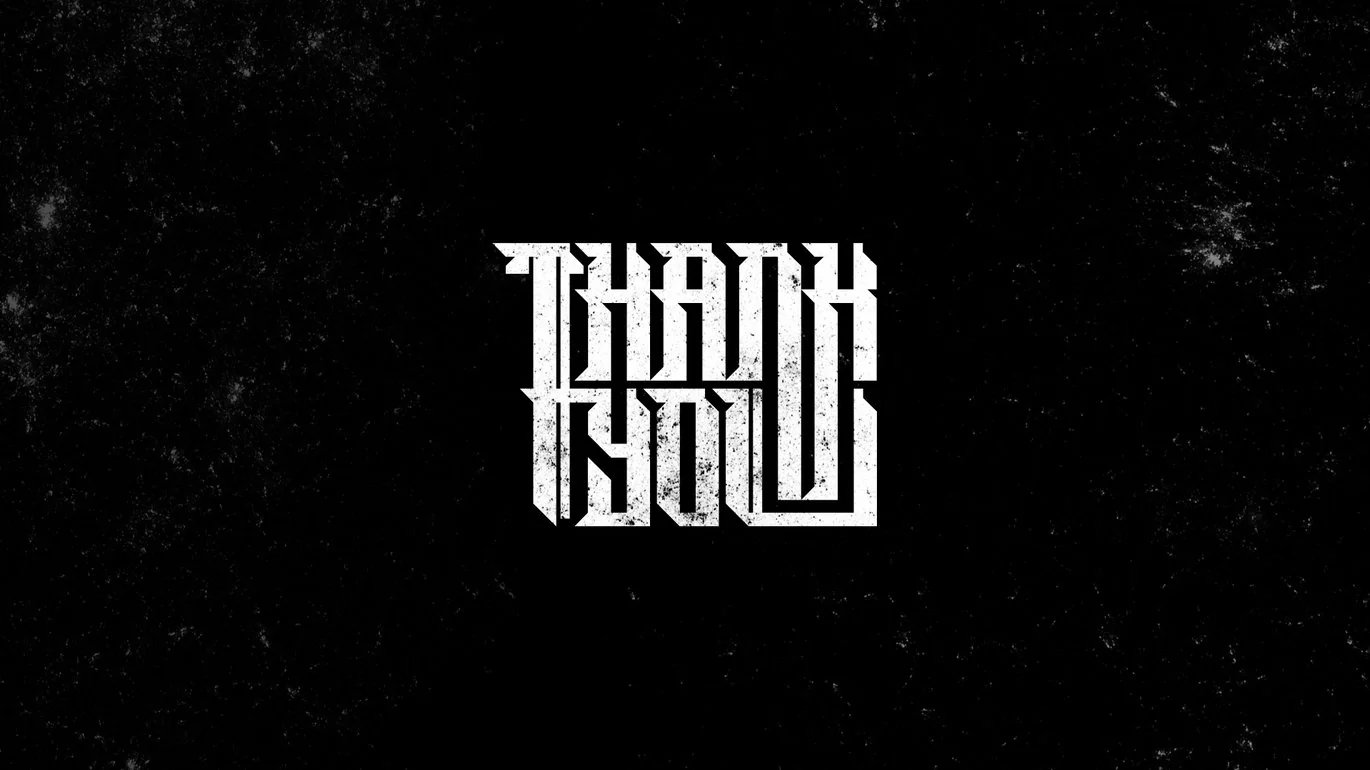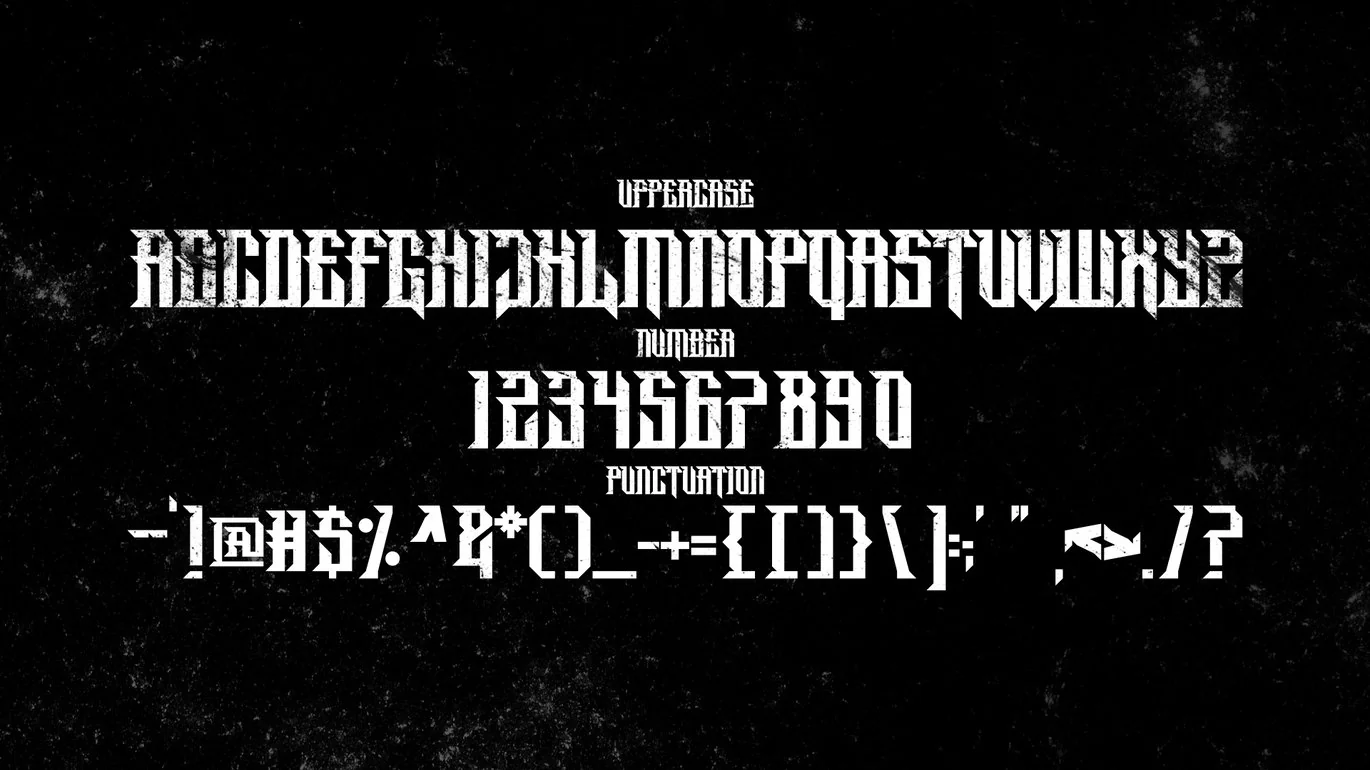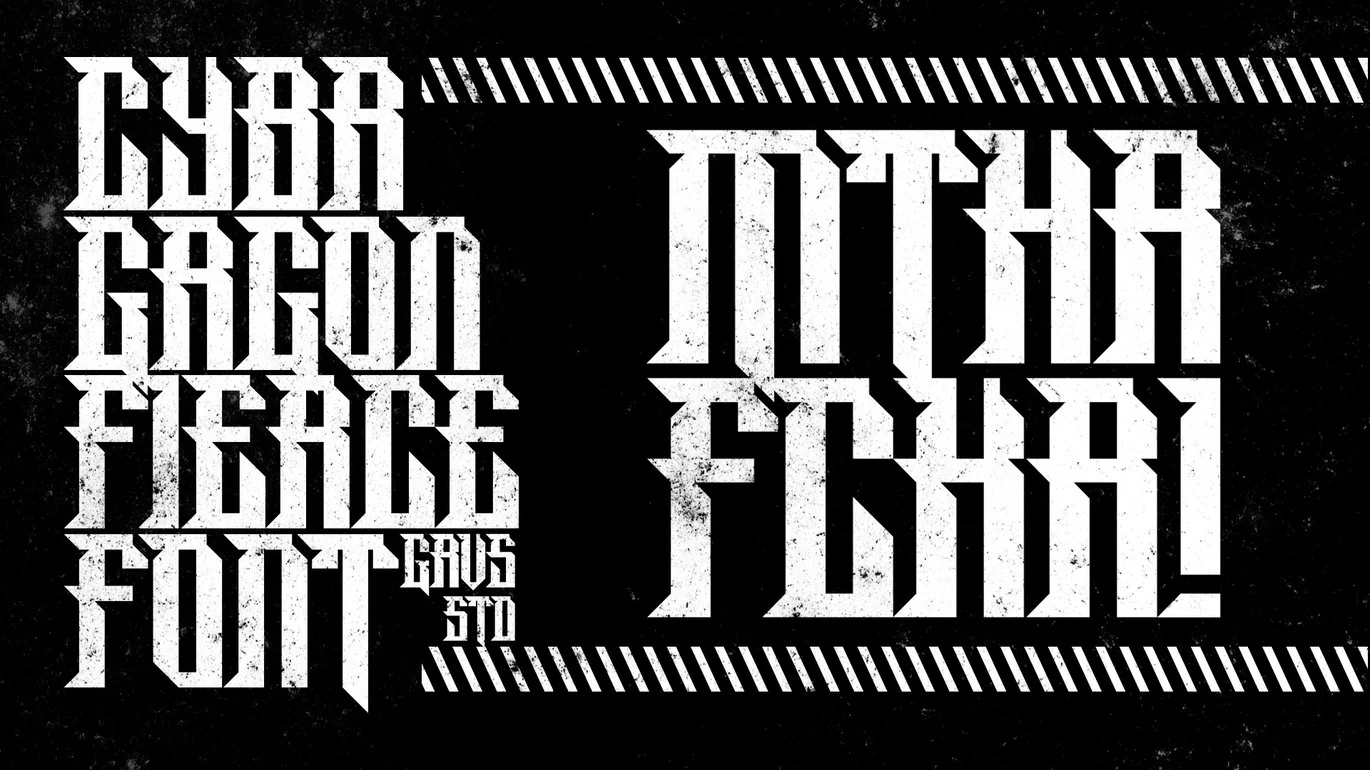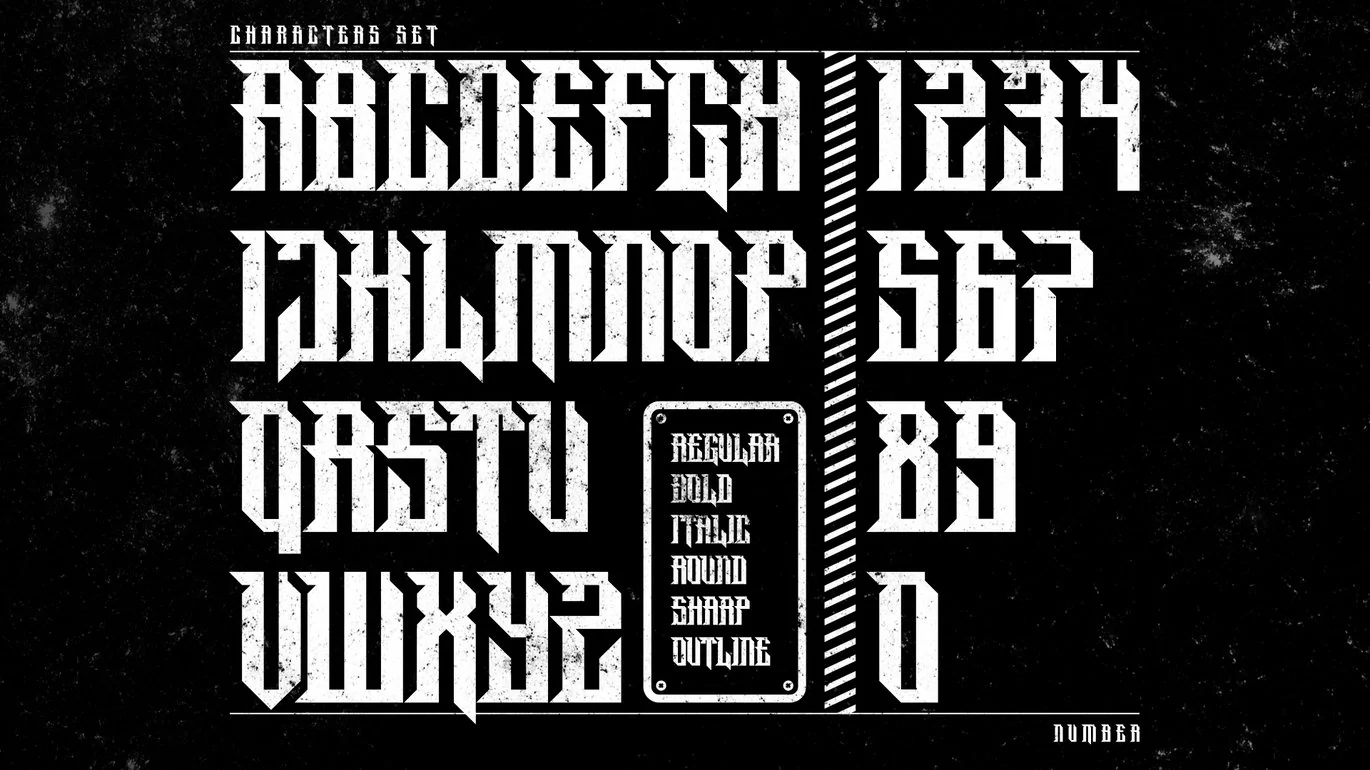
Cyber Gorgon Font
GRVS Cyber Gorgon Font is our new item that is suitable for your team logo, or community logo with a Cyberpunk theme.
Great for Logo, Sticker, Jersey, Invitation Card, Brochures, etc.